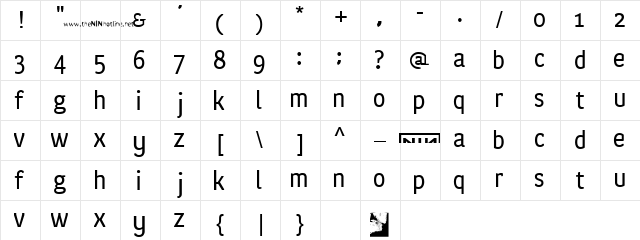
Wretched Regular
Design Context for Wretched Typeface
Wretched offers clean, dependable letterforms without strong stylistic allegiance, making it a practical choice for designers who need flexibility.